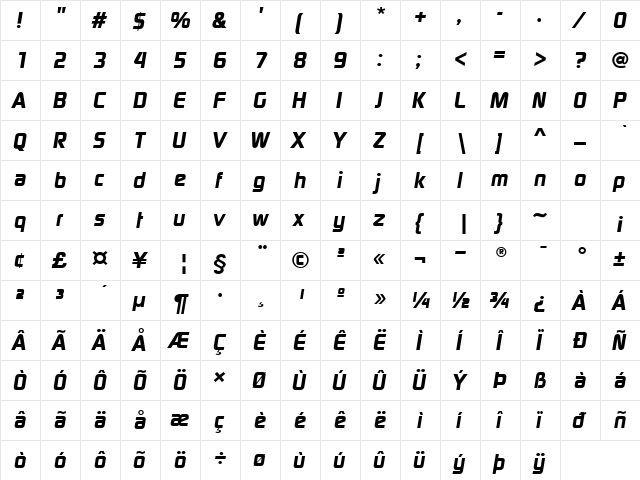
Digital Sans EF Bold Italic Font Preview
Design Context for Digital Sans EF Typeface
Digital Sans EF channels digital-age aesthetics through its sharp, structured letterforms — ideal for brands that want to signal innovation. The dynamic lean of this cut emphasises speed and emphasis in any layout. Its bold stroke weight gives it real presence on the page.